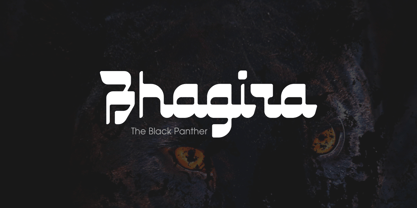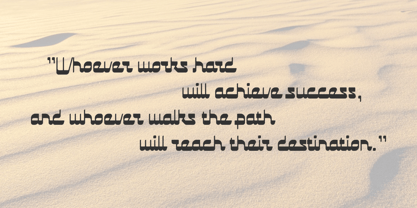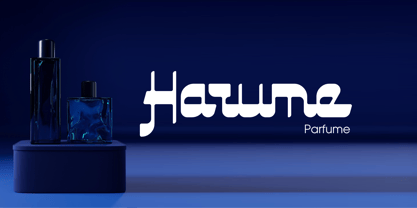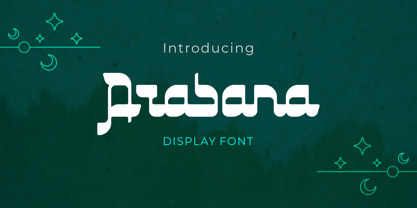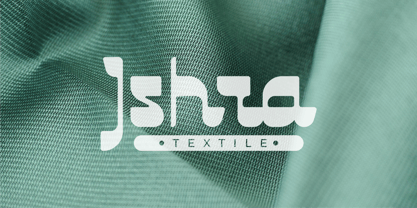
Arabana
by ARToni
The Arabana Font Family was designed by Anthonie Van Hayu and published by ARToni. Arabana contains 1 styles.
Arabana is a Modern arabic style fonts bring a unique aesthetic inspired by Middle Eastern calligraphy and design. They often feature elegant curves, intricate details, and a cultural richness that makes them perfect for branding, packaging, and event materials.
Designers: Anthonie Van Hayu
Publisher: ARToni
Foundry: ARToni